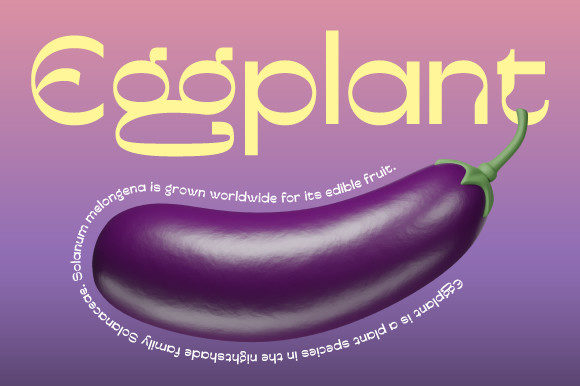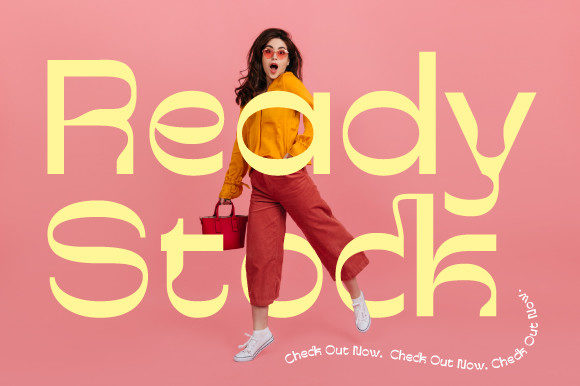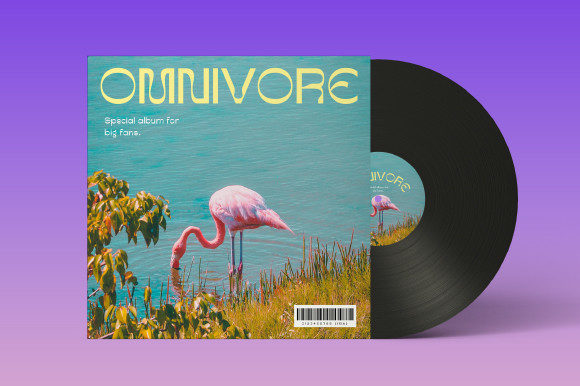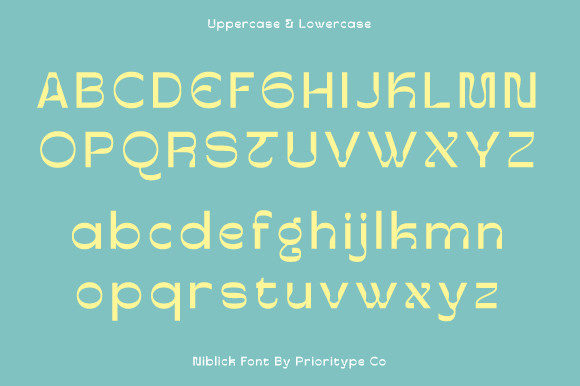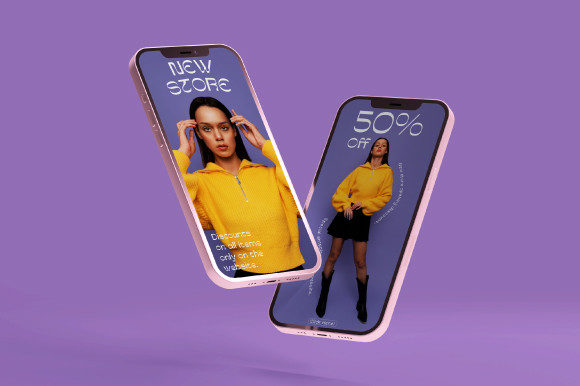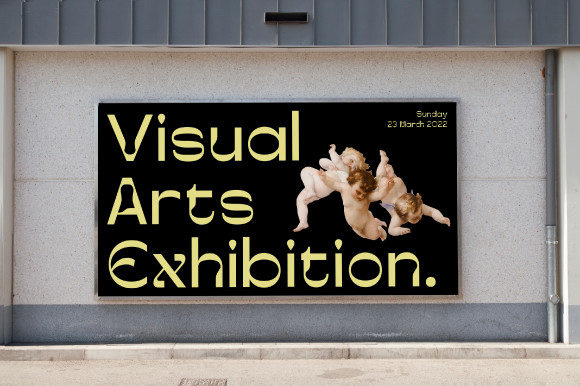
Introduction to Niblick Font
Imagine you’re brainstorming ideas for a new branding project, and you stumble upon the perfect font to bring your vision to life. For designers, this moment is a dream come true. And for those who have experienced it, you know exactly how thrilling it is to find the perfect design resource that elevates your creative project to the next level. This is exactly what happens when you discover the Niblick Font.
A modern and classic styled display typeface, Niblick Font is more than just a font – it’s a design game-changer. Its unique touches on each character add a level of sophistication and style that’s hard to find in other fonts. Whether you’re working on a high-quality branding design, poster, or logo, Niblick Font is the perfect choice to make your design stand out.
With its sleek and modern design, Niblick Font is a free download that’s sure to become a favorite among designers. Plus, its transparent background makes it easy to integrate into any design project. So why settle for a generic font when you can elevate your designs with the Niblick Font?
Key Features of Niblick Font
- High-quality design resource with a unique, creative style, ideal for various projects
- Designed to be versatile, suitable for use in various creative projects, from logos to branding materials
Honest Review: Niblick Font
As a designer, I’m always on the lookout for high-quality fonts that can elevate my creative projects. Recently, I stumbled upon the Niblick Font, and I must say it’s a great addition to my design resource library.
- ✨ The font’s transparent background allows for seamless integration with any design element.
- ✨ The font’s versatility makes it suitable for a wide range of creative projects, from digital designs to print materials.
- ⚠️ The font’s character set is limited, which may not be suitable for projects requiring extensive typing.
- ⚠️ The font’s bold weight could be improved upon, as it may appear slightly inconsistent at certain sizes.
Overall, I’m impressed with the Niblick Font’s potential to enhance my designs. While it may have some limitations, it’s a great starting point for any creative project. I’d definitely recommend it to fellow designers looking for a reliable, high-quality font.
Niblick Font
The Niblick Font is a high-quality design resource ideal for creative projects. This font offers a unique and stylish look that can elevate any visual content.
Getting the Most Out of Niblick Font
To get the most out of the Niblick Font, experiment with different font sizes, colors, and styles. Combine it with other design elements to create visually appealing content.
The Niblick Font is perfect for creative projects such as logos, branding materials, social media graphics, and more. Its unique style and high-quality design make it an ideal choice for designers and non-designers alike.
Comparison to Niblick Font: Great Vibes has a more modern and sophisticated feel compared to Niblick Font, which has a more vintage and playful look.
Yes, the Niblick Font is designed to be used in a variety of creative projects, including vector graphics and illustrations. Its high-quality design and transparent background make it perfect for creating intricate designs and illustrations that require precise typography.